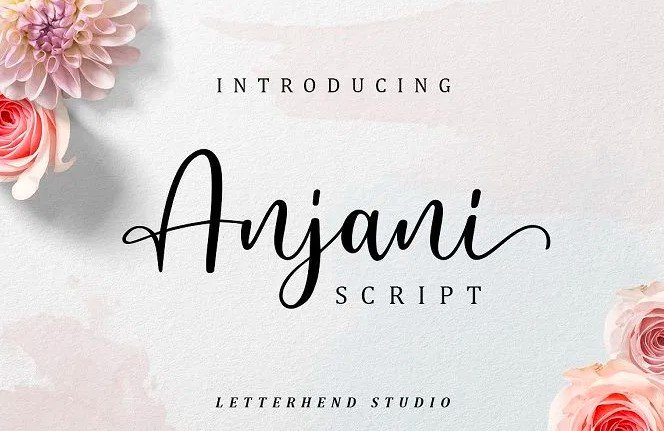
Introducing the great and elegant scripted typeface which is Anjani Script Font that is the most modern calligraphic typeface which will fulfill all your requirements and needs. It is a brand new typeface that comes along with more than 230 glyphs and ligatures.